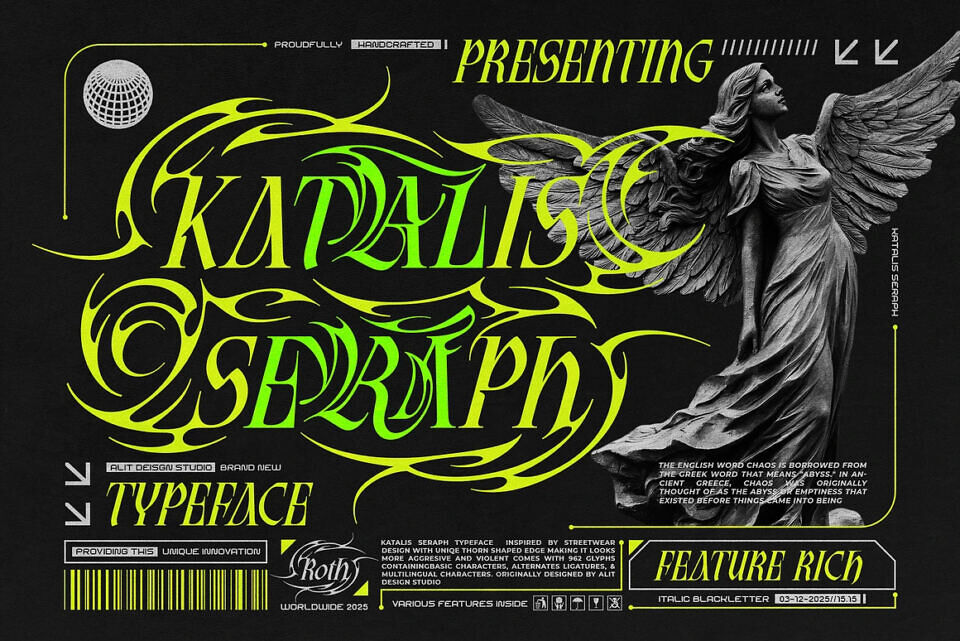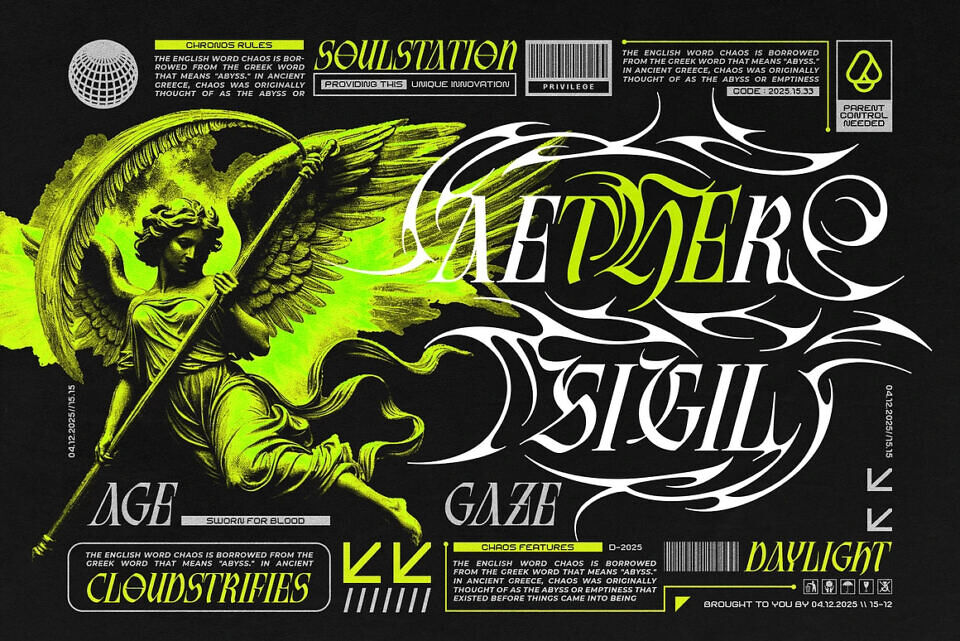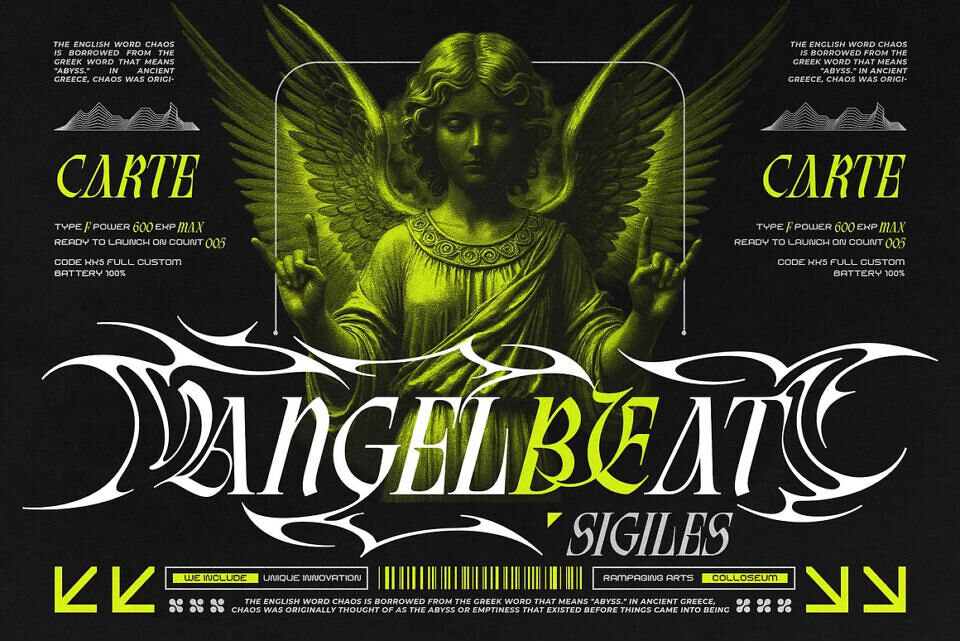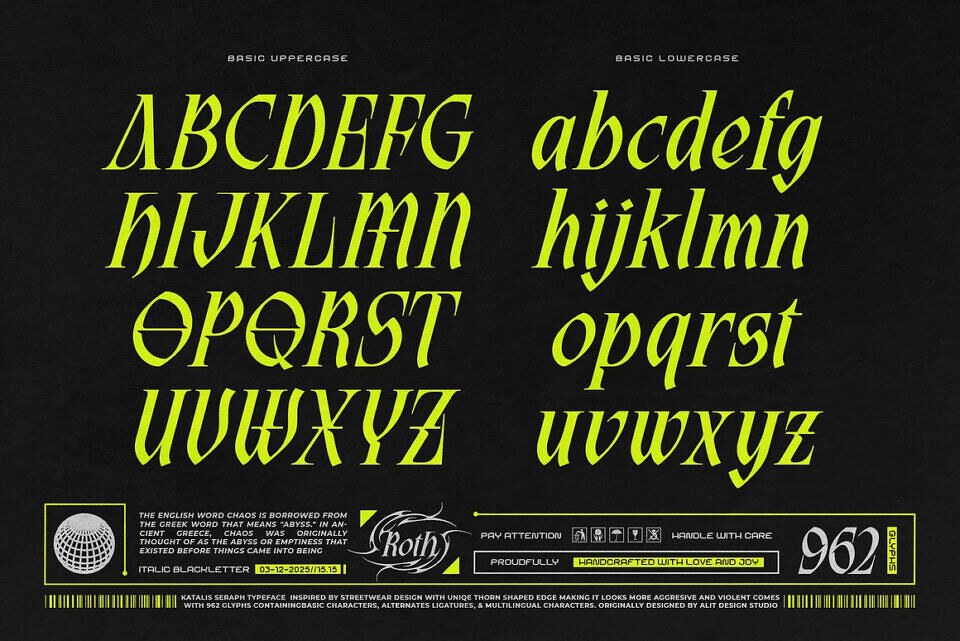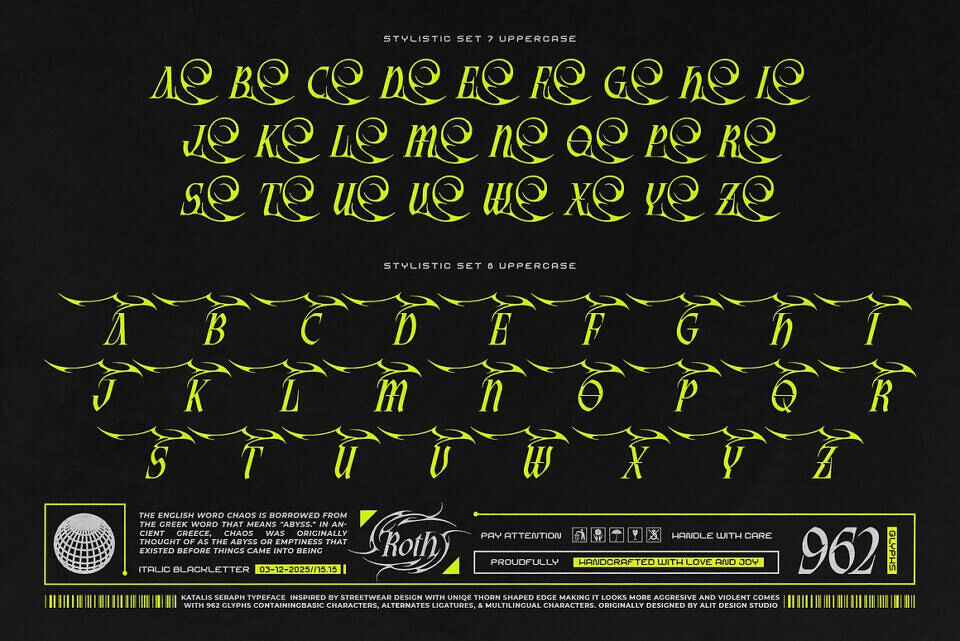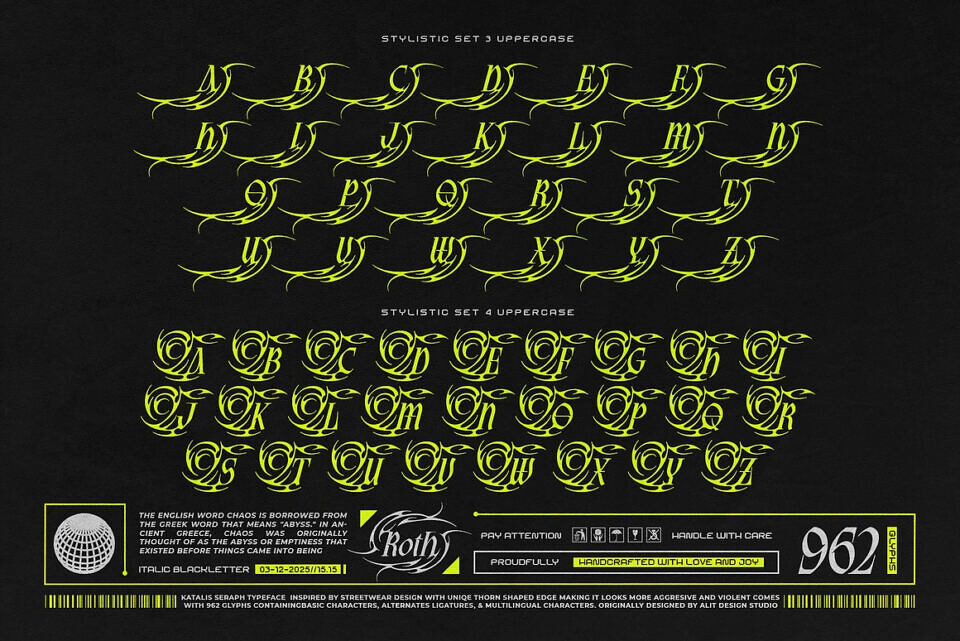
Katalis Seraph Font
Introducing Katalis Seraph, a typeface born from the collision of ancient gothic aesthetics and modern streetwear rebellion. This isn’t just a font; it is a visual weapon. Designed with an aggressive italic stance, Katalis Seraph features unique thorn-shaped edges and razor-sharp serifs that scream speed and power.
Inspired by the concept of “Chaos” from ancient Greek mythology and the raw energy of contemporary Y2K/Acid graphics, this typeface bridges the gap between the classical and the radical. Whether you are designing for a brutalist clothing brand, a heavy metal album cover, or an avant-garde art poster, Katalis Seraph provides the edge you need to stand out.